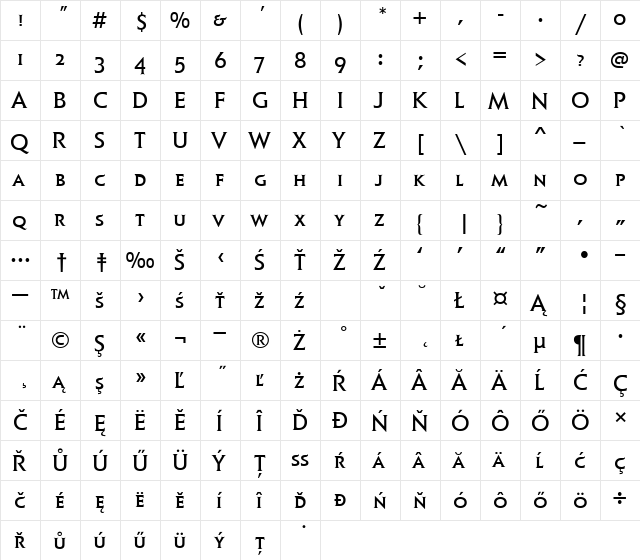
ElanItcSCTEEBoo Regular Font Preview
ElanItcSCTEEBoo Regular
ElanItcSCTEEBoo Regular Font Details
Design Context for ElanItcSCTEEBoo Typeface
ElanItcSCTEEBoo takes a measured approach to typography — its balanced proportions and neutral character make it a reliable workhorse for both digital and print work.